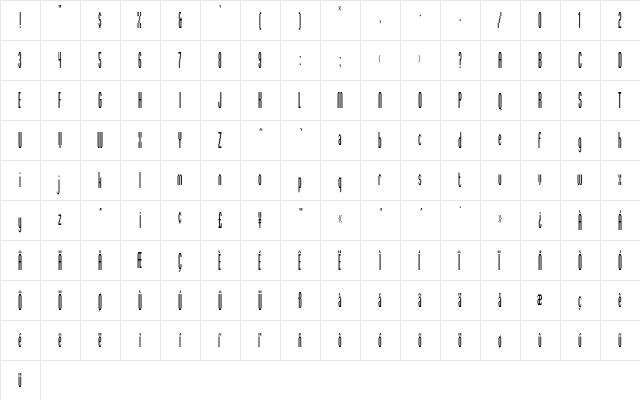
Digitek .. Plain
Design Context for Digitek Typeface
Digitek has a distinctly futuristic character, with geometric precision and clean angles that feel at home in technology, gaming, and sci-fi contexts.
Pro Tip: Try Digitek with generous letter-spacing in UI labels and navigation — the geometric forms benefit from room to breathe.